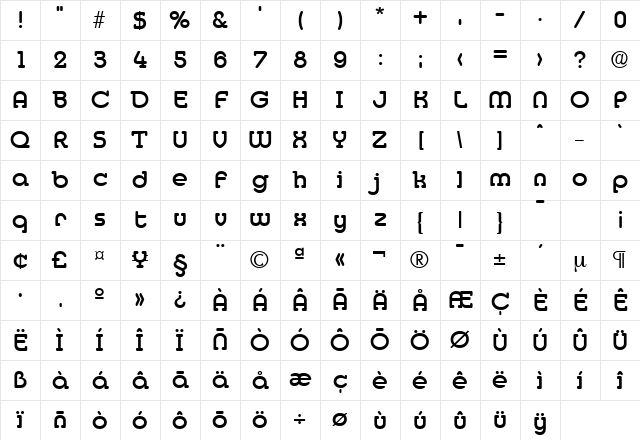
Media-Serial-Medium Regular
Design Context for Media-Serial-Medium
Media-Serial-Medium is a composed and adaptable typeface that performs quietly and consistently across a wide range of design contexts.
Pro Tip: Use Media-Serial-Medium in both headline and body roles to test its range before committing to a single application.